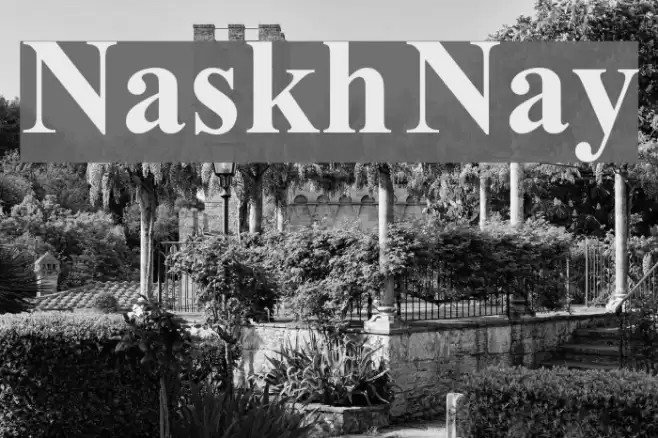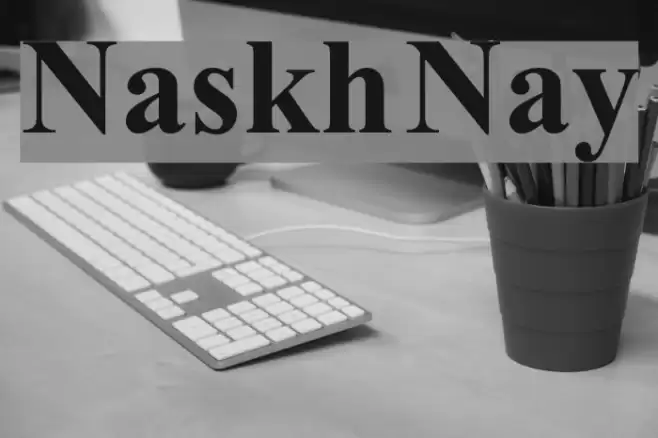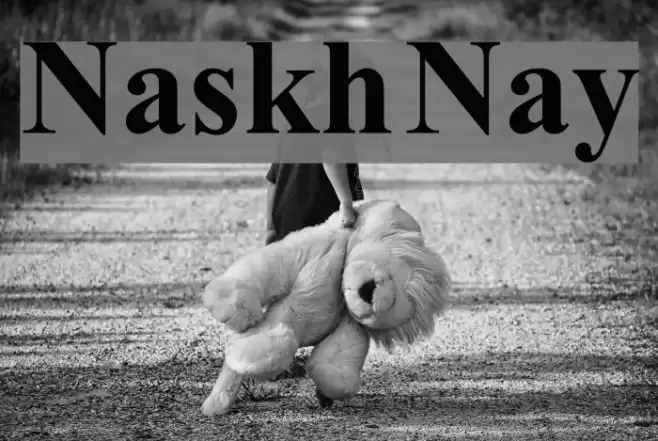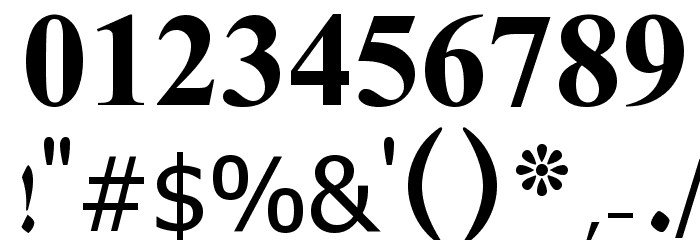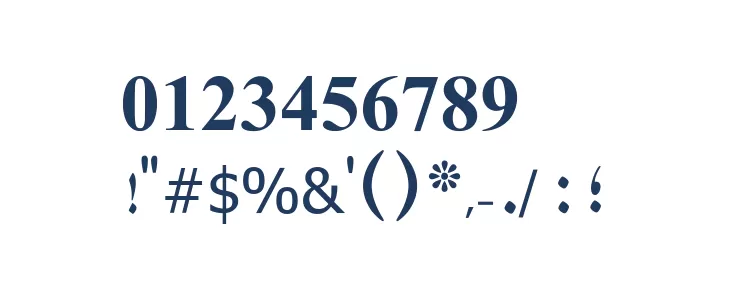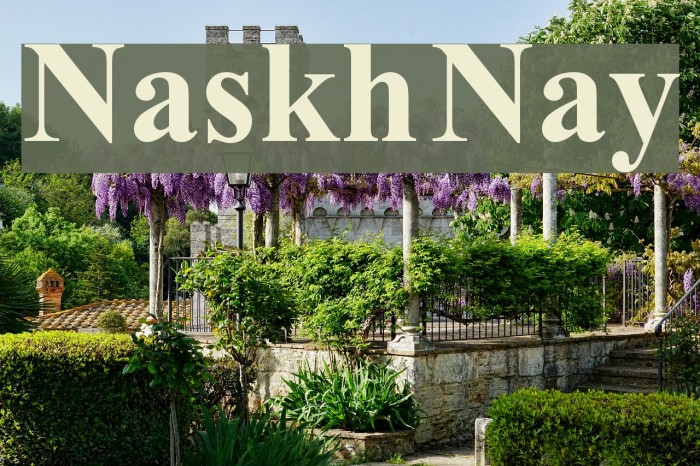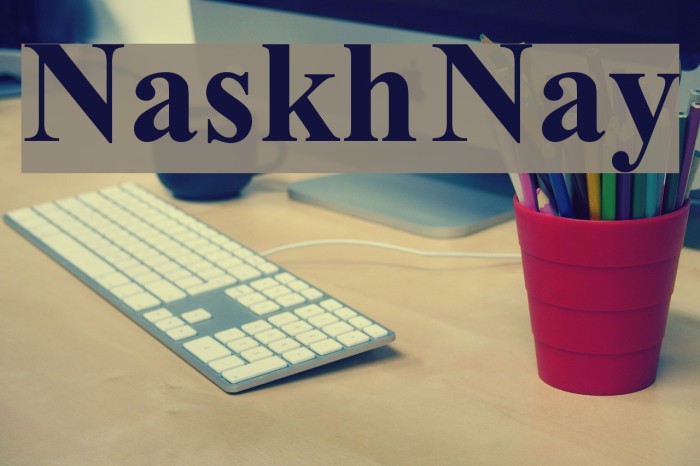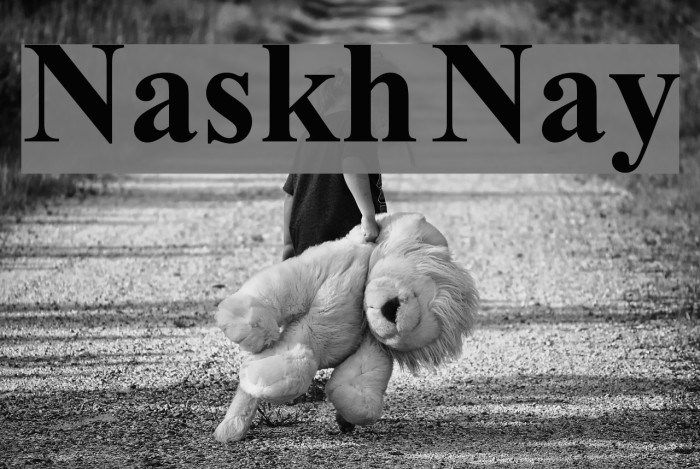
Naskh Nay
This font features a classic serif design with strong, bold strokes and high contrast between thick and thin lines. The uppercase letters are elegantly structured with sharp serifs, giving a formal and authoritative appearance. The lowercase letters maintain a consistent style with slightly rounded edges, enhancing readability. Numerals are proportionate and align well with the overall aesthetic, while special characters are distinct and well-defined. The font's balance of traditional serif elements with modern touches makes it versatile for various applications.
A classic serif font with bold strokes and high contrast, ideal for formal uses from Serif fonts.
- Proposed Projects: This font is perfect for editorial design, book covers, formal invitations, and branding materials that require a sophisticated and authoritative look.
- Contrast: High
- Overall Style: Classic